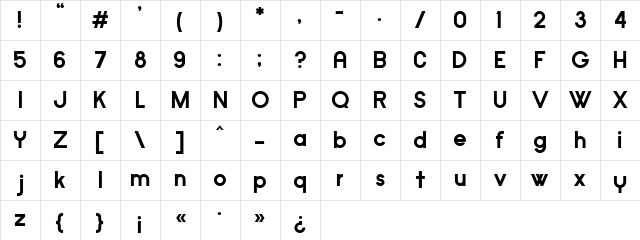
Cypher Bold
| Foundry | Ill Type |
| Designer | Nabeel Khalid |
Design Context for Cypher Typeface
Cypher takes a measured approach to typography — its balanced proportions and neutral character make it a reliable workhorse for both digital and print work. Its bold stroke weight gives it real presence on the page.